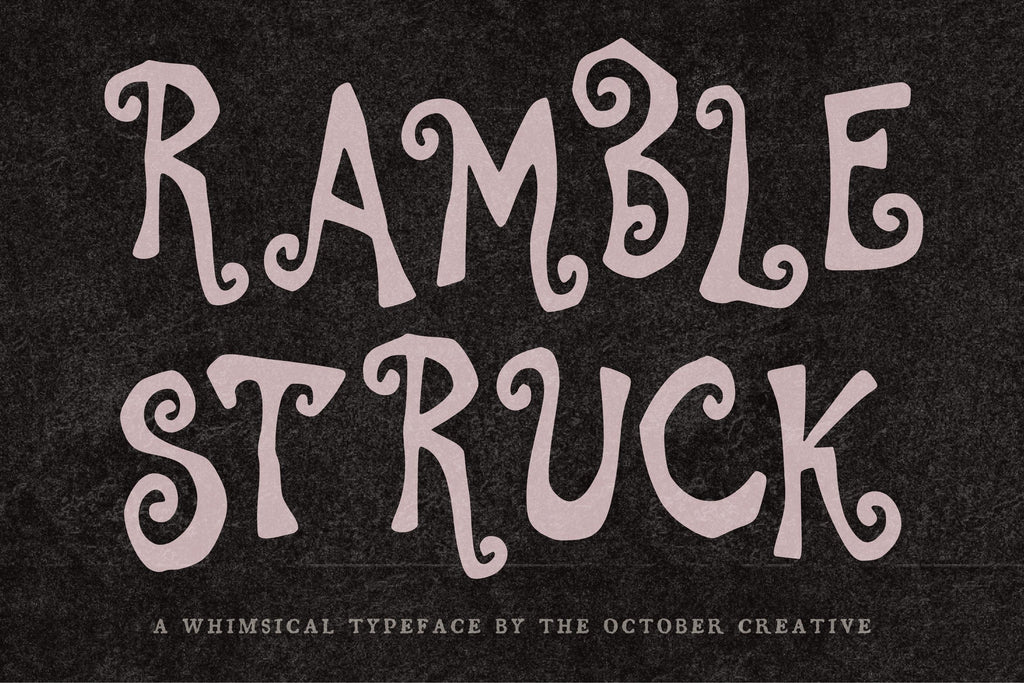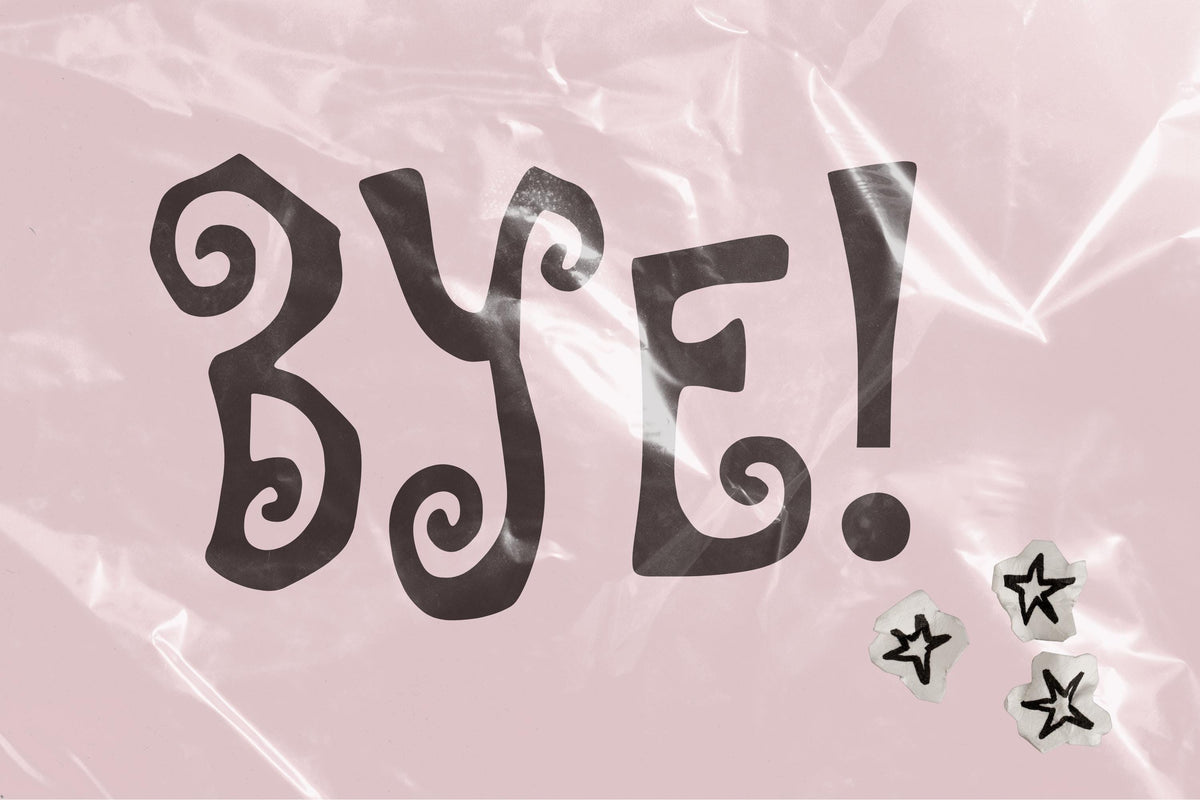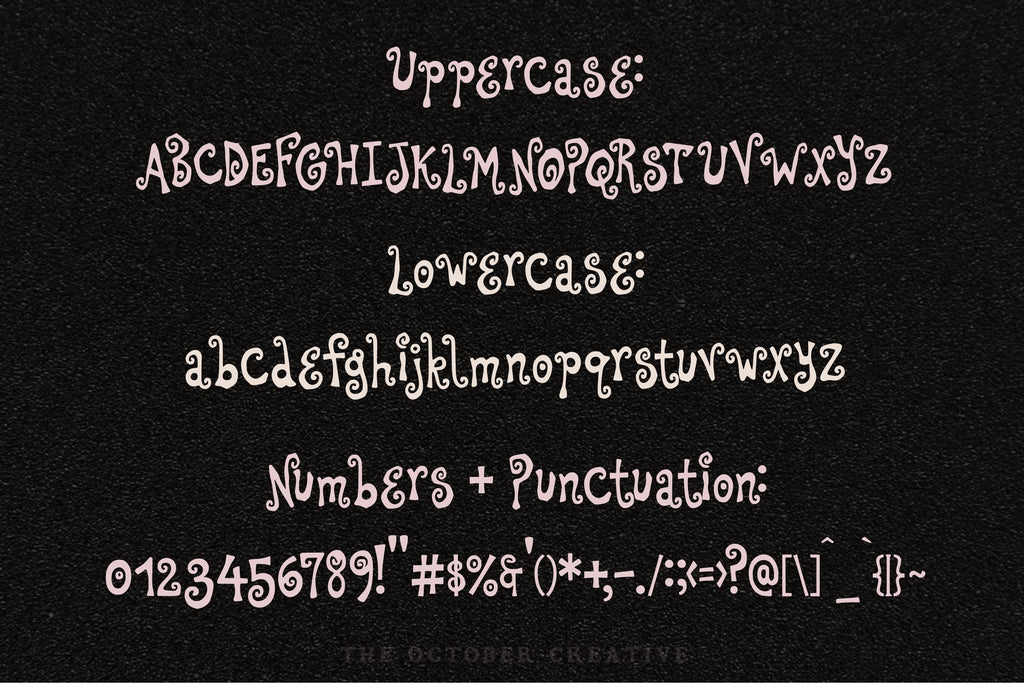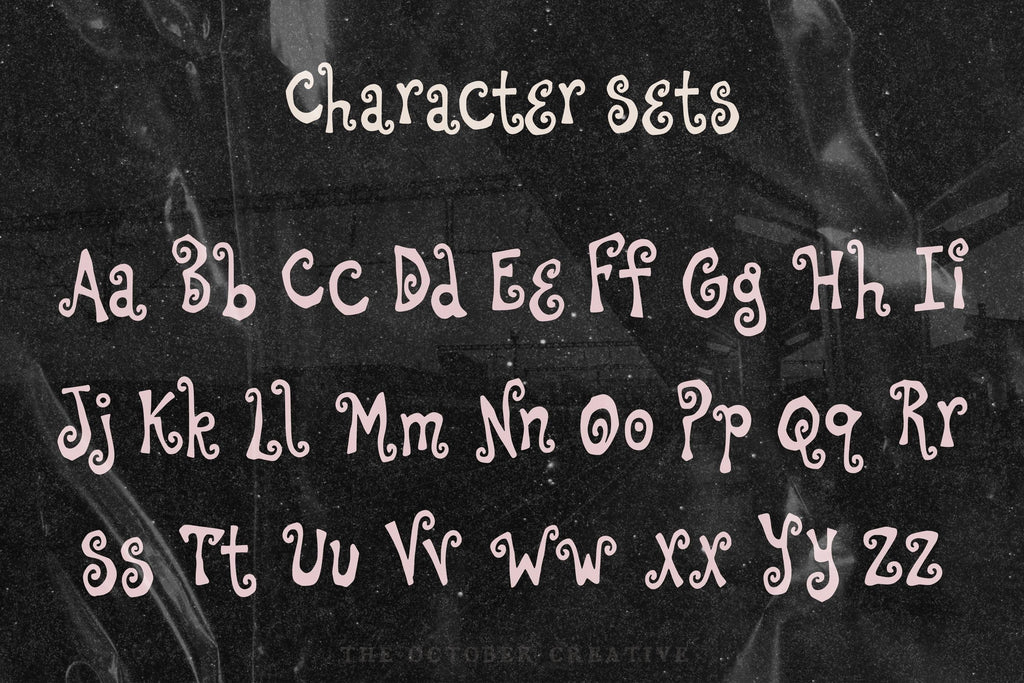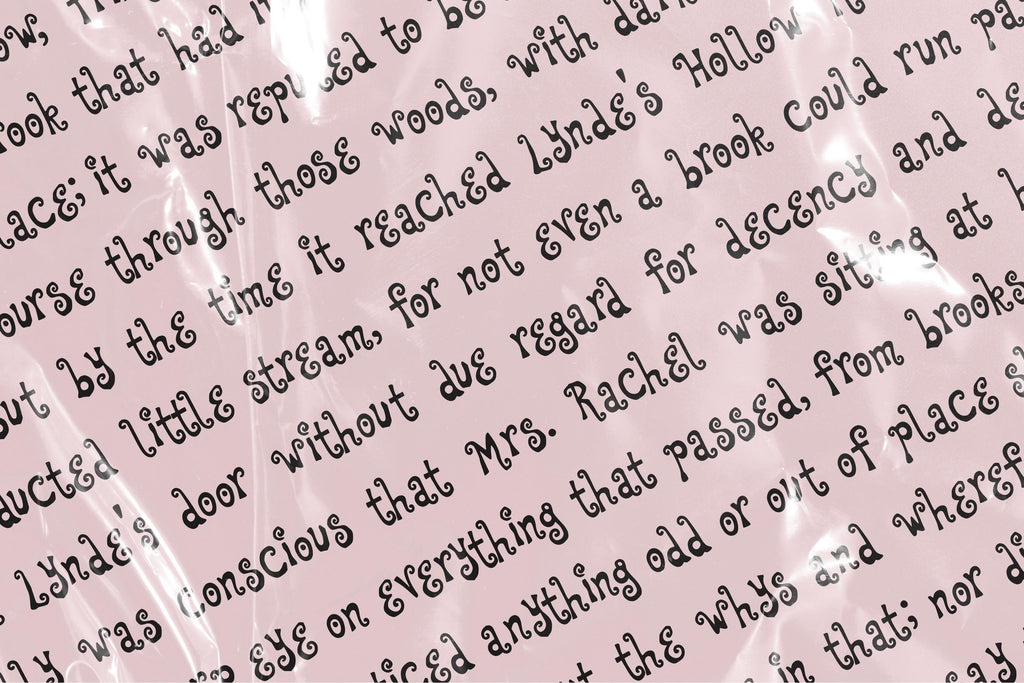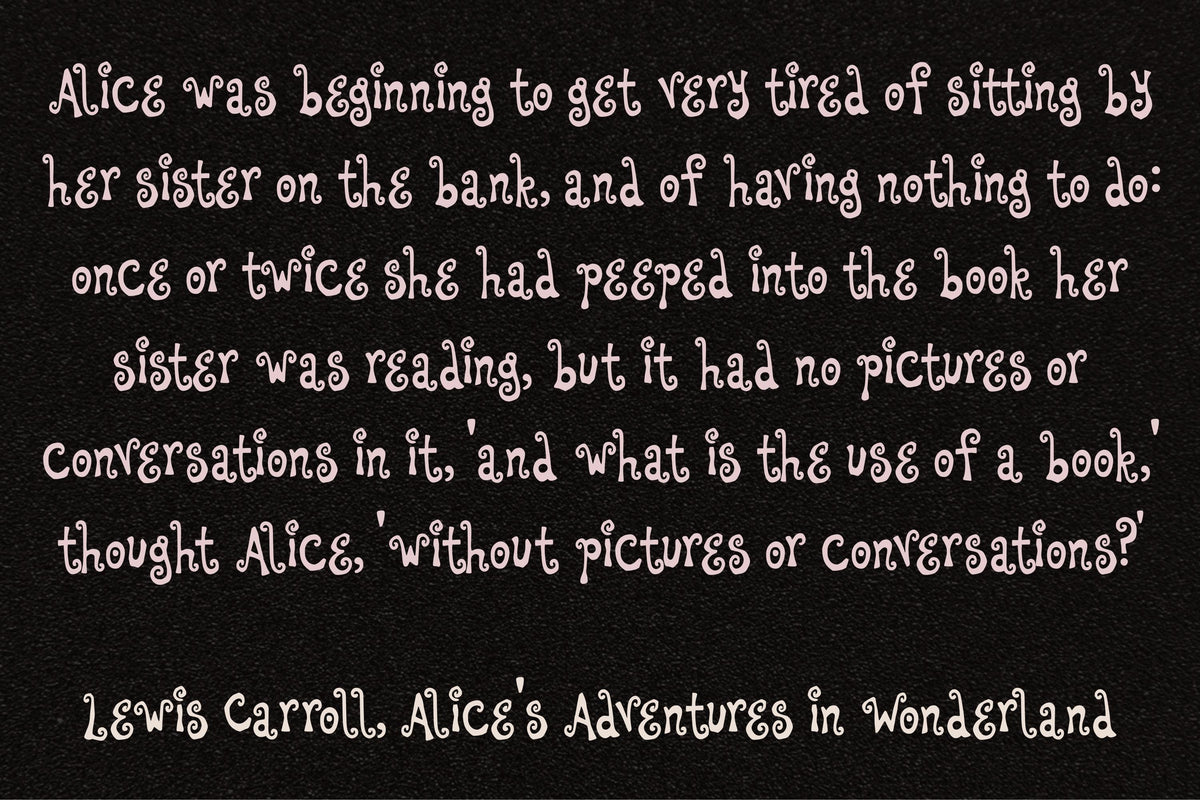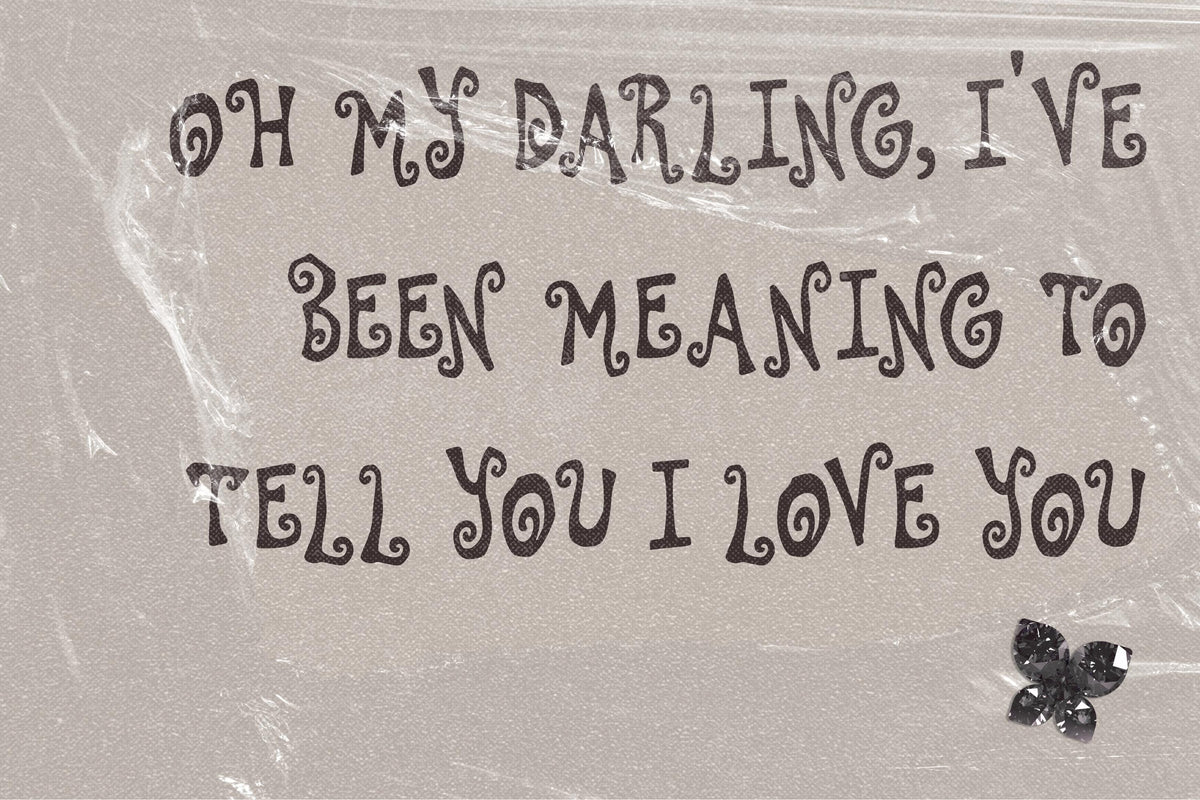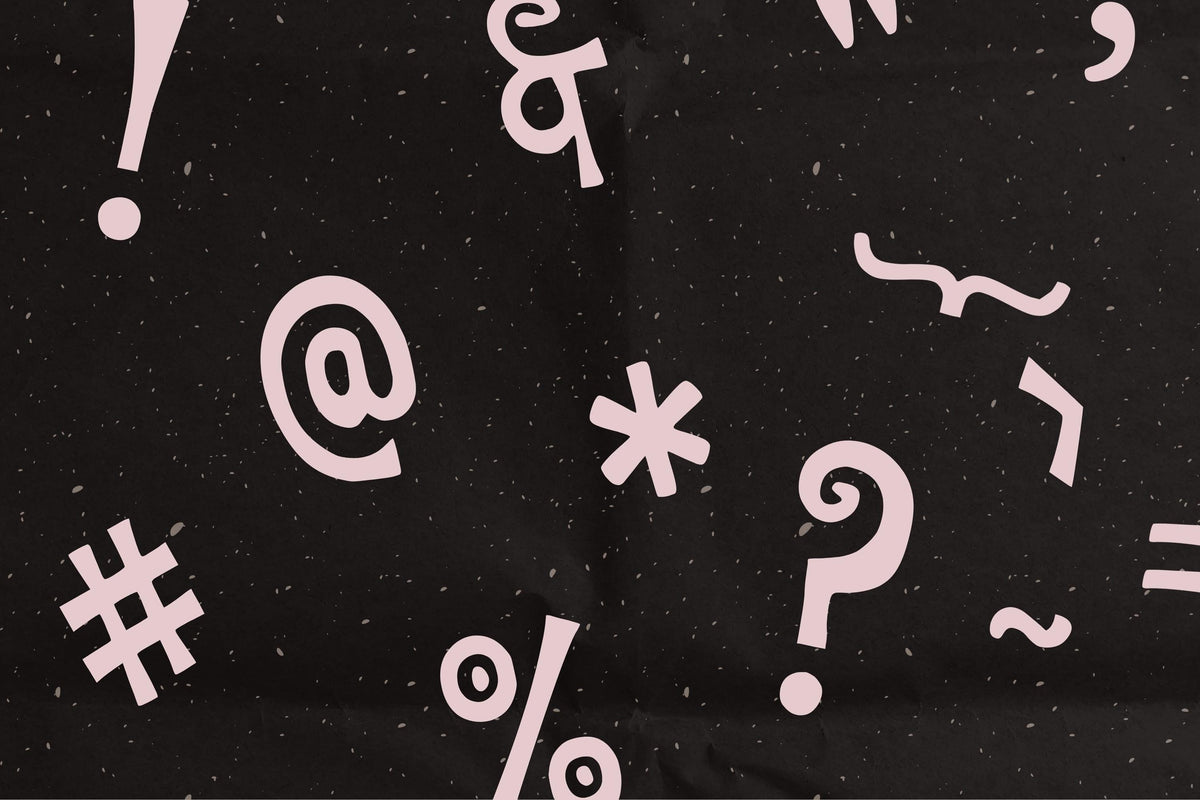
Ramblestruck Font
Ramblestruck brings bold curls and gloriously uneven letters to band posters, gig flyers, and party invitations. The letters bob up and down through each word, as though they've already heard the music.